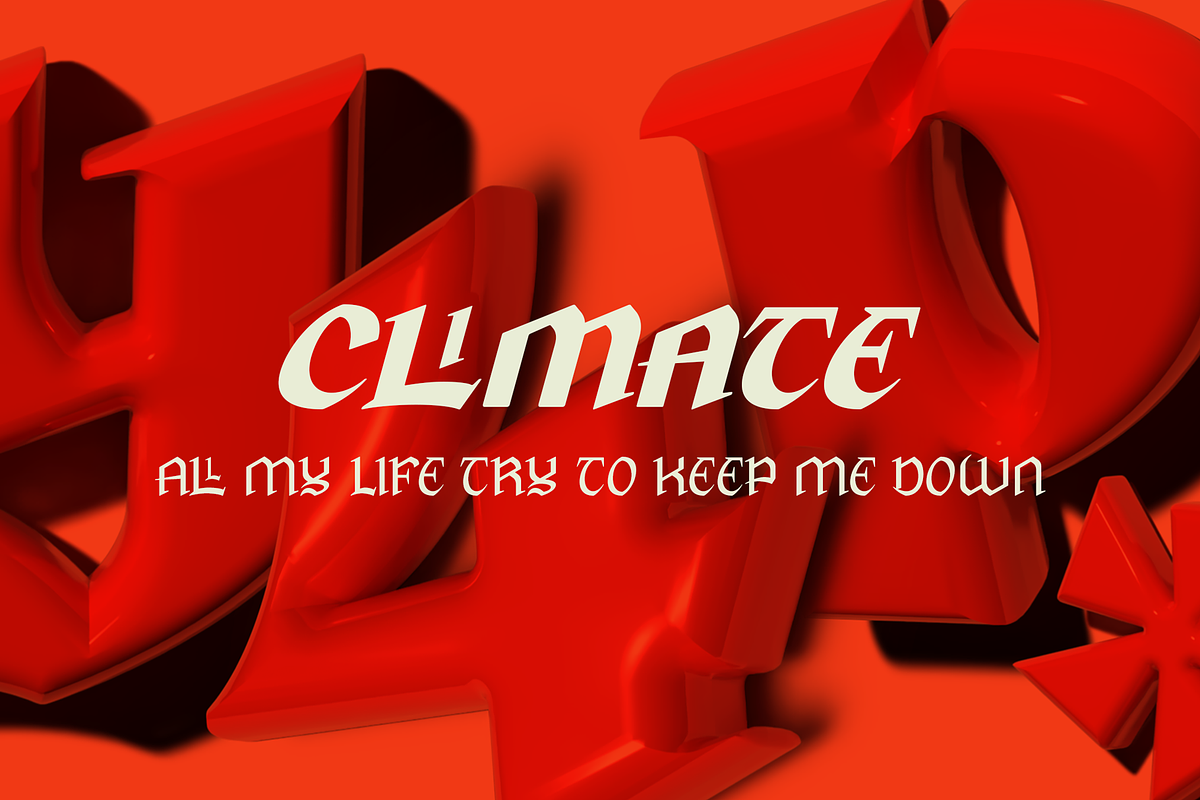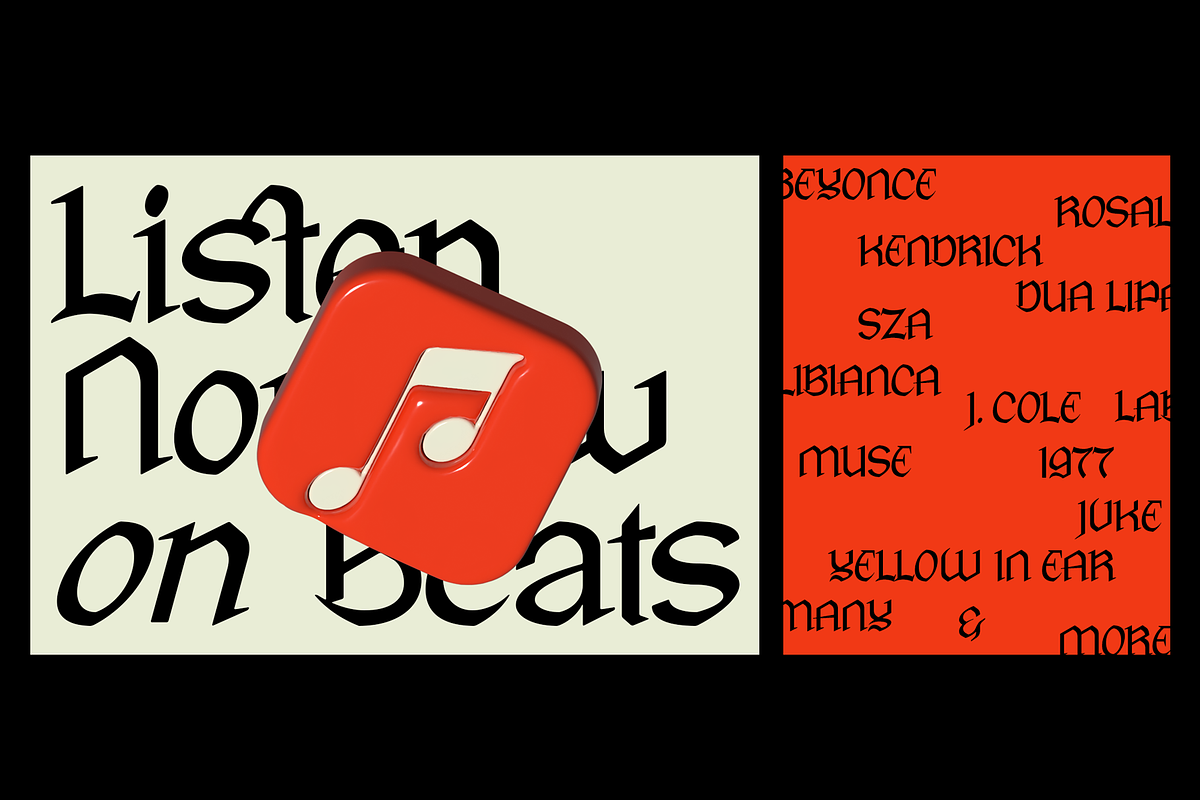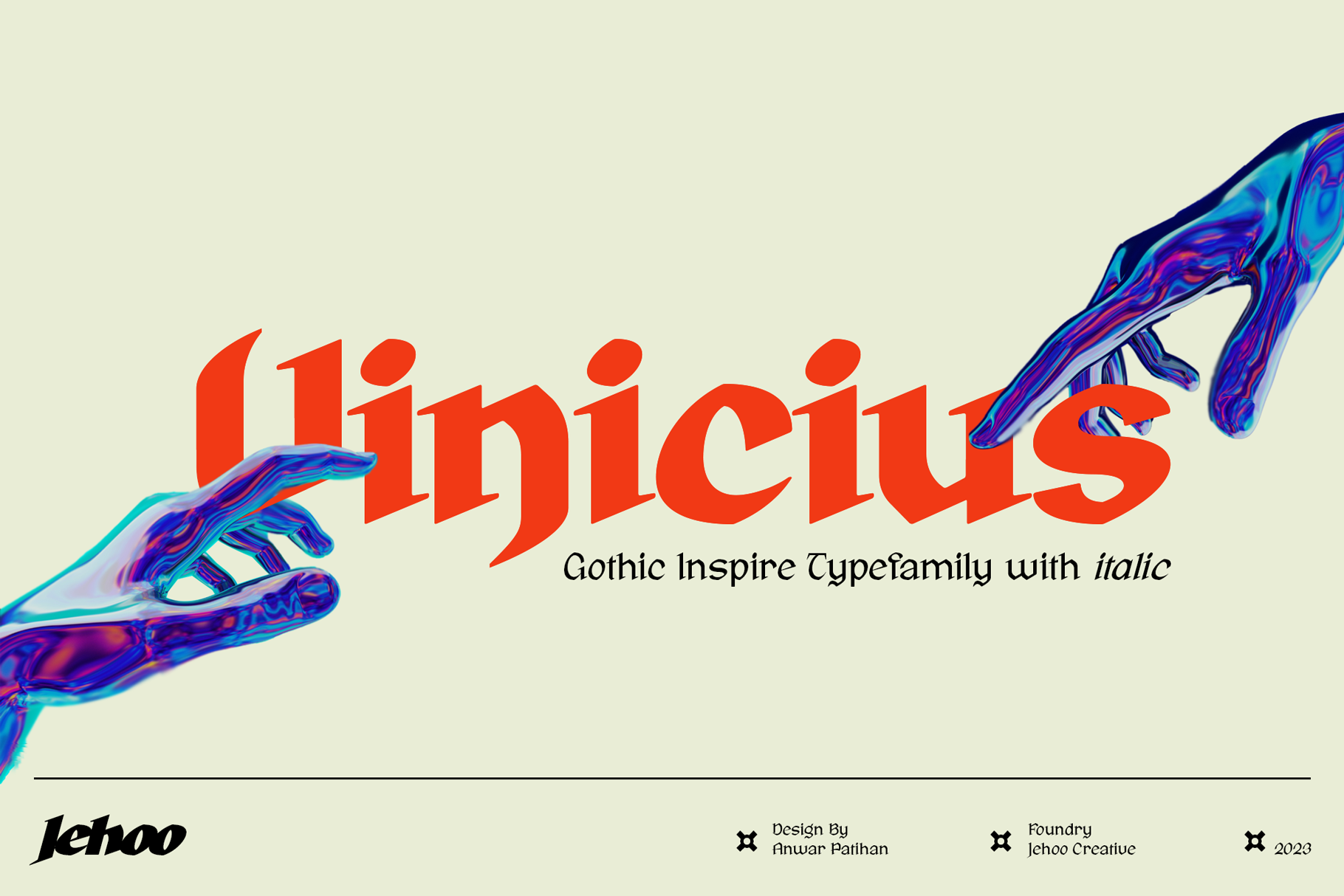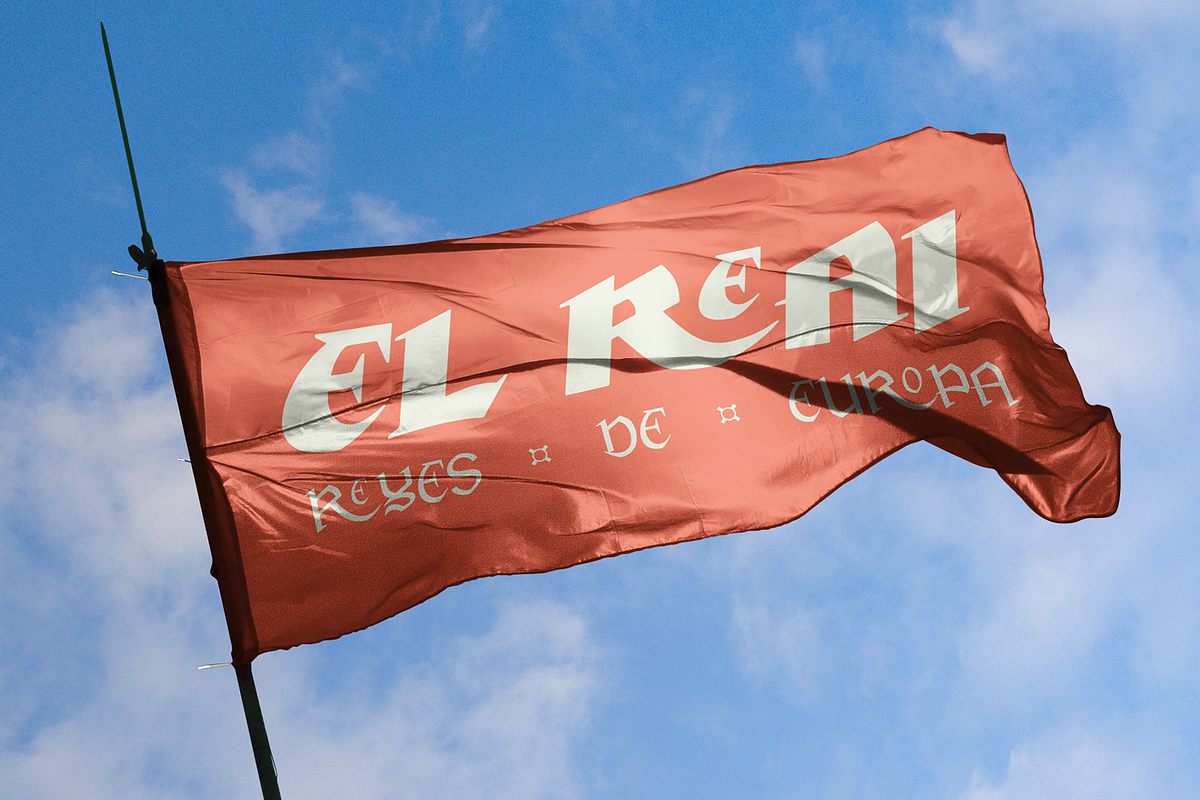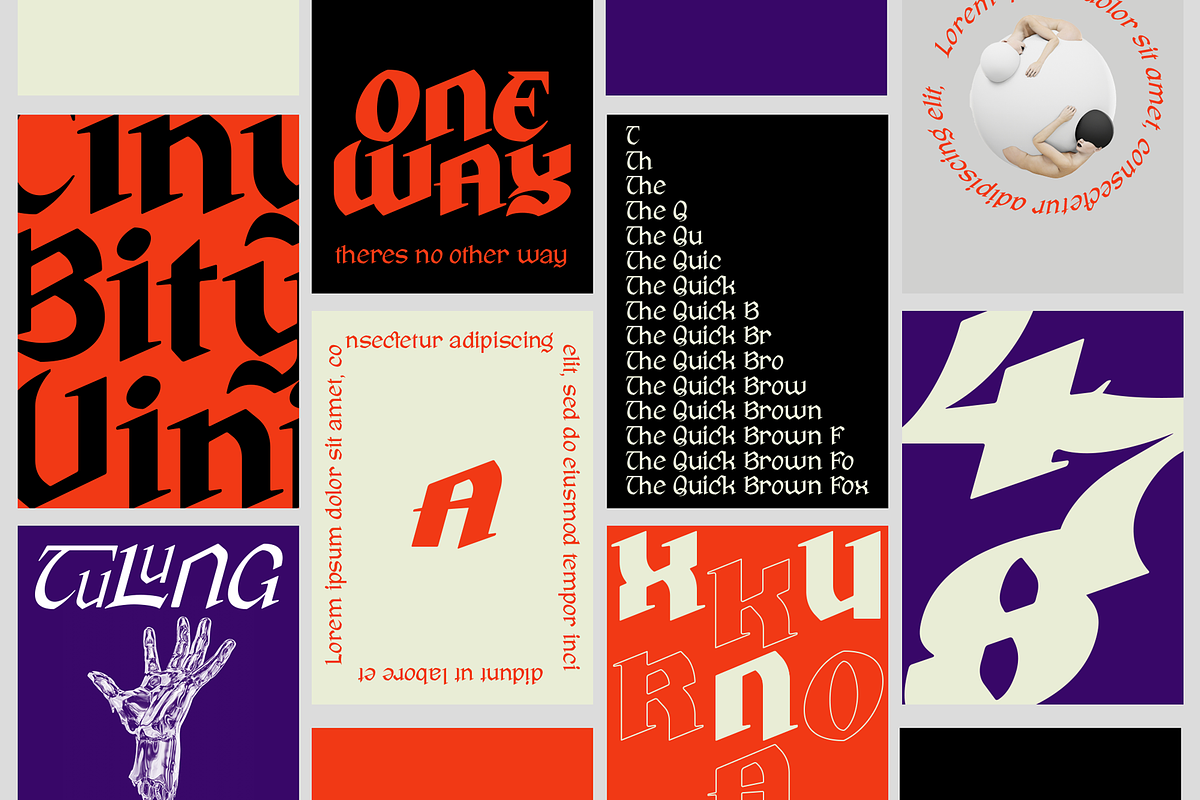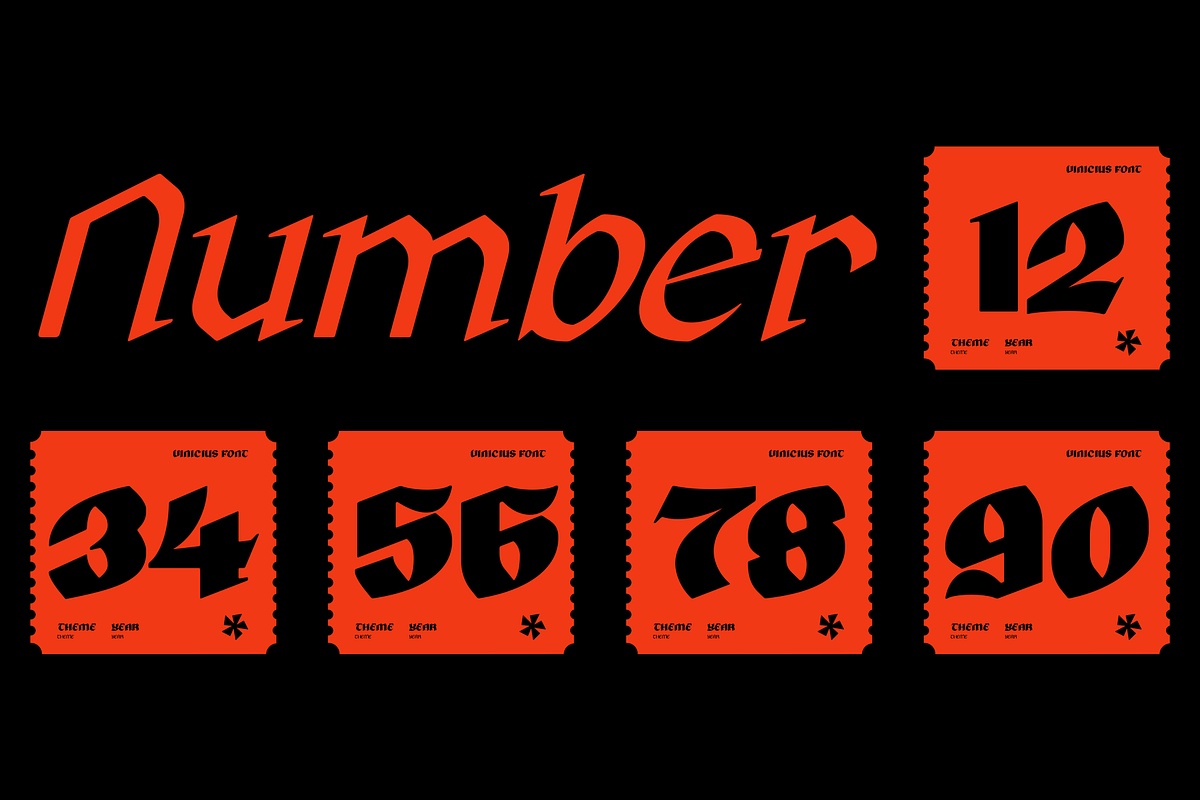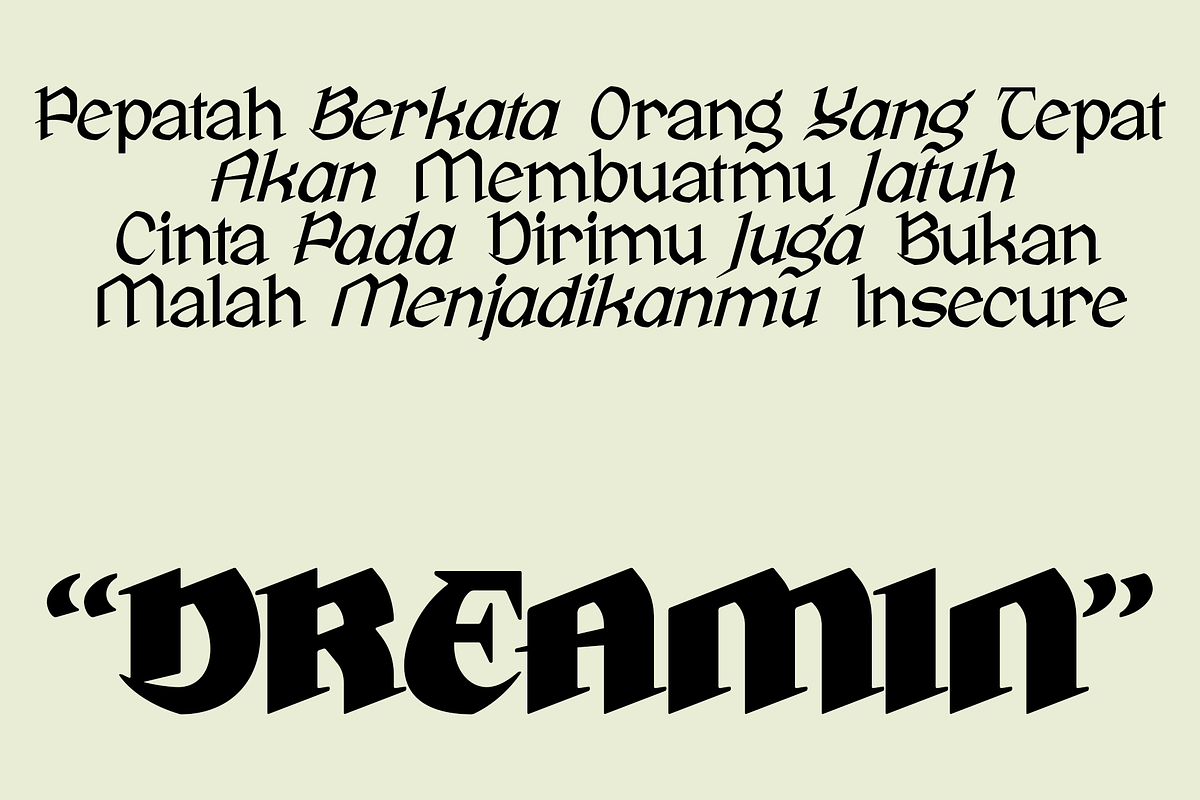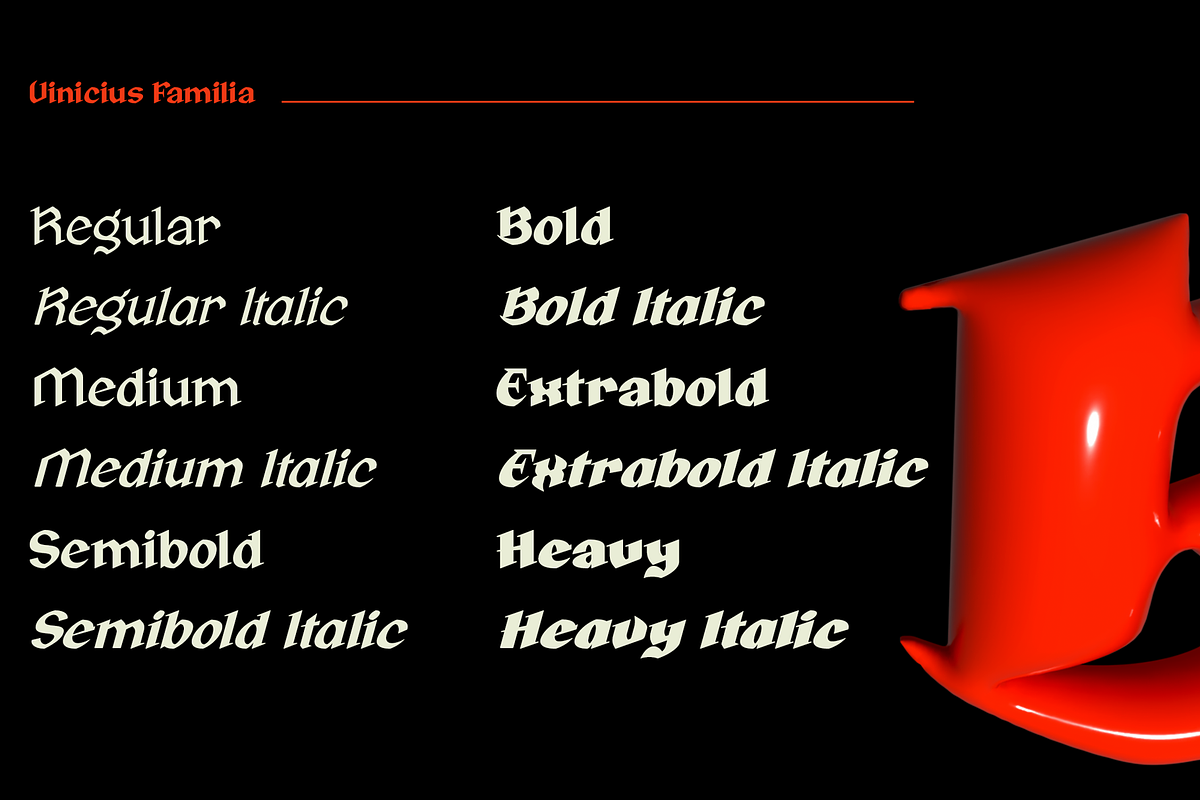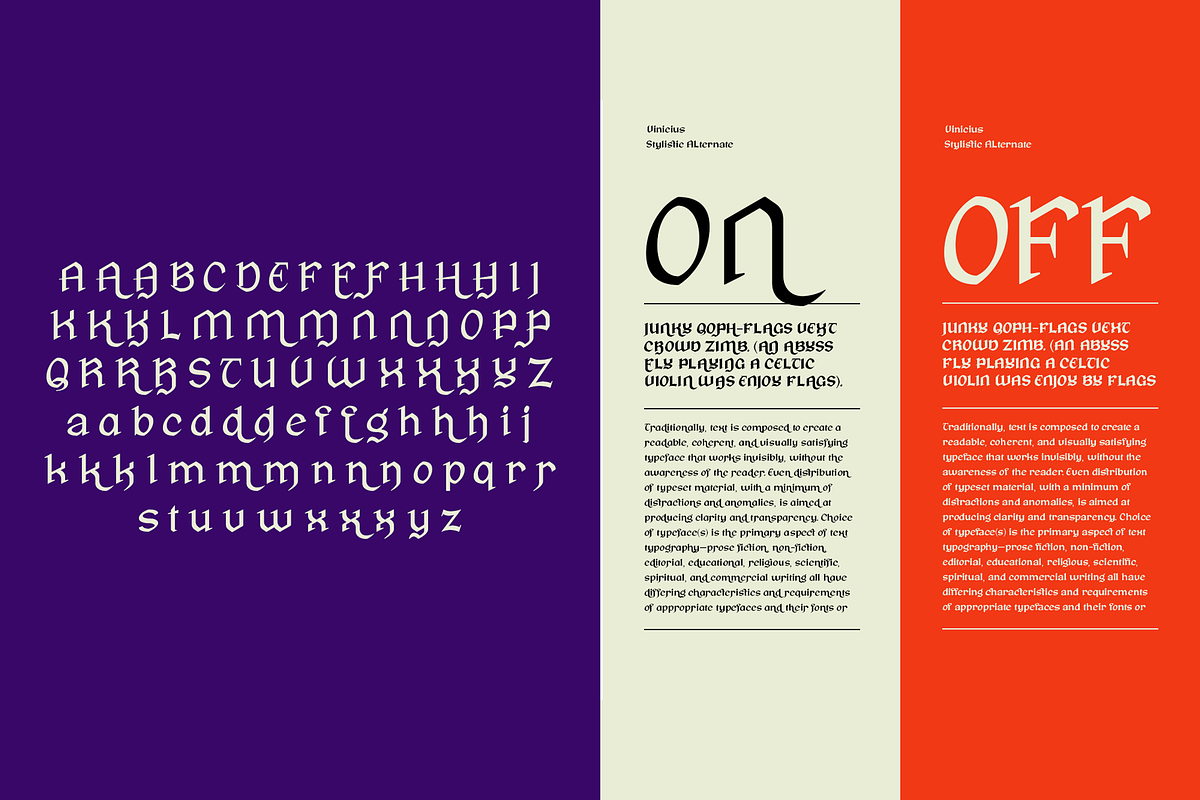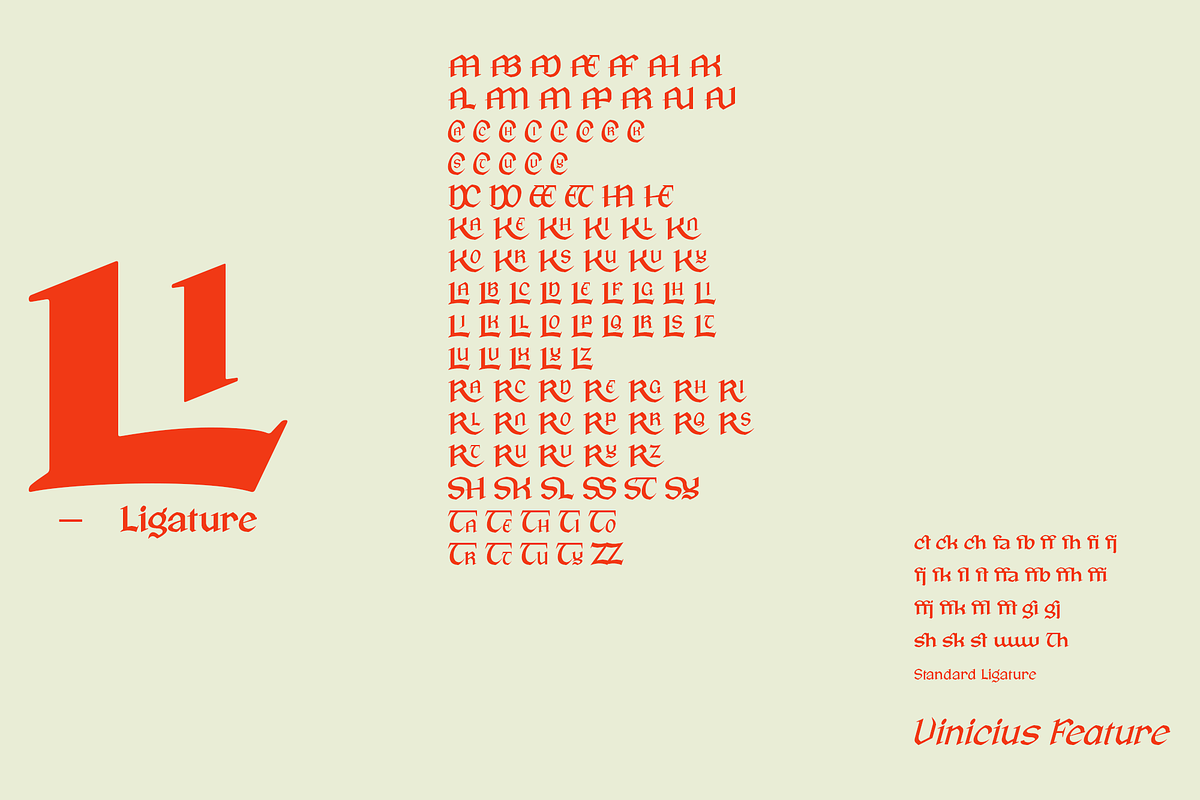
Vinicius - Gothic Inspire Typefamily
Introducing the Vinicius a gorgeous typeface that combines the timeless allure of gothic typefaces with a contemporary twist. Inspired by the rich heritage of medieval calligraphy, Vinicius offers beautiful forms that attract attention and inspire courage.
Vinicius offers a range of Stylistic Alternate, allowing you to explore artistic possibilities and customize your typography creations. One of Vinicius' standout features is his striking collection of ligatures. These skillfully crafted letter combinations enhance the flow and coherence of your text, giving it a harmonious and seamless appearance. Whether you're crafting a headline, invitation or logo, Vinicius ligatures add a signature touch that sets your design apart. Italic variants add a touch of dynamism and flair to your text, allowing you to emphasize specific words, phrases or paragraphs with a visually appealing slant.
Vinicius font is ideal for a variety of creative projects, including branding, editorial design, packaging, and more. Its ability to seamlessly blend tradition and modernity makes it a powerful tool for conveying both classic and contemporary aesthetics.